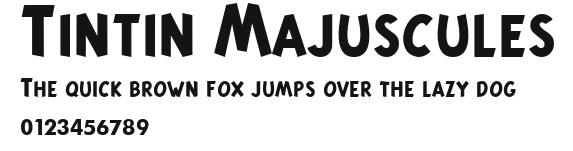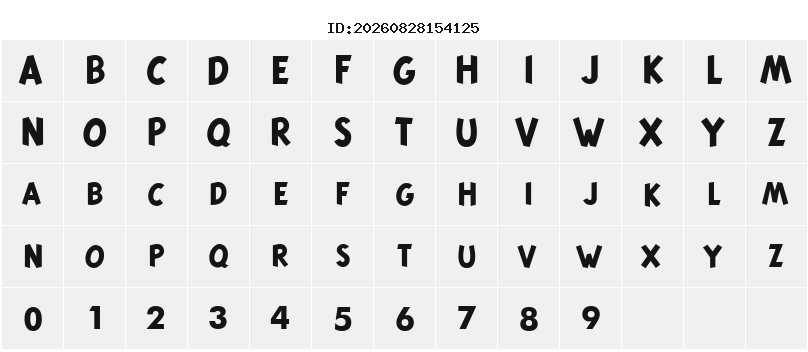
Tintin Majuscules.ttf is a modern, elegant sans-serif font designed for ultimate readability and visual harmony. Perfect for branding, headlines, web design, and print materials.